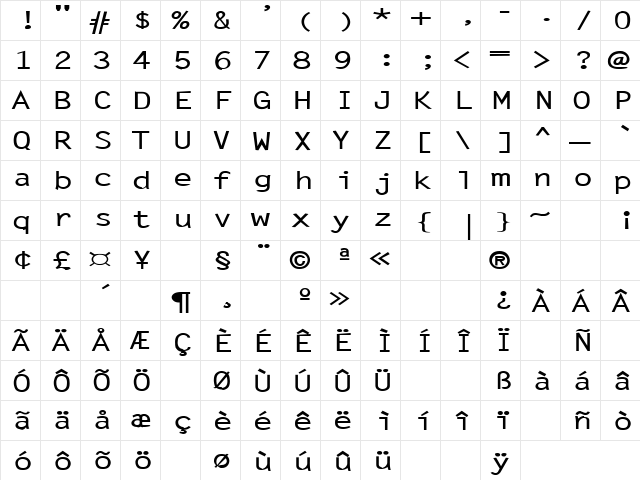
Celebration Day 10 Regular
Design Context for Celebration Day 10 Typeface
Celebration Day 10 offers clean, dependable letterforms without strong stylistic allegiance, making it a practical choice for designers who need flexibility.